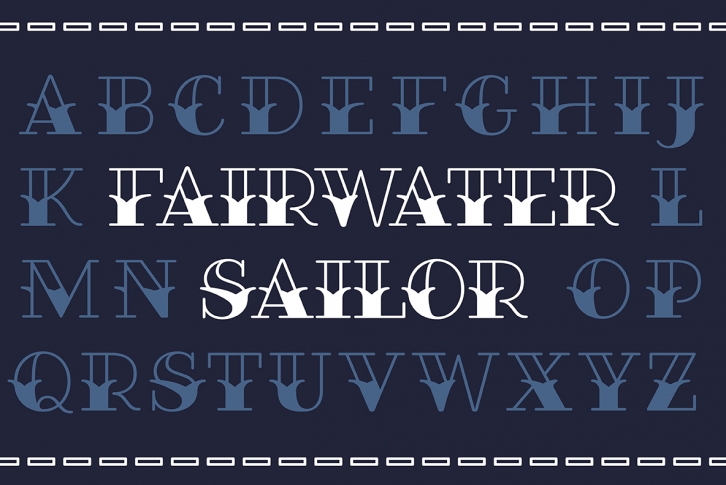
Fairwater Sailor Serif is a great font that was designed by Laura Worthington Type. Imagine the amount of combinations you can create using this font! The archive is 12.6 MB and it was released on October 1, 2016. Fairwater Sailor Serif looks beautiful on wedding invitations, greeting cards, logos, posters, labels, t-shirt designs, logos, business cards and is perfect for use in ink or watercolor works, fashion, magazines, packaging and food menus, children's books and more!